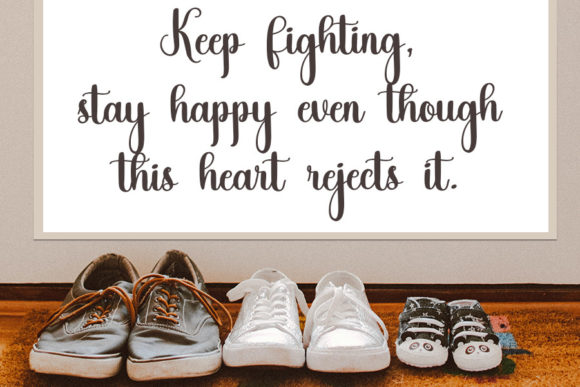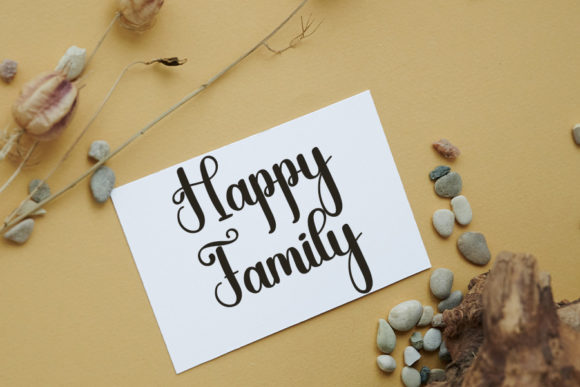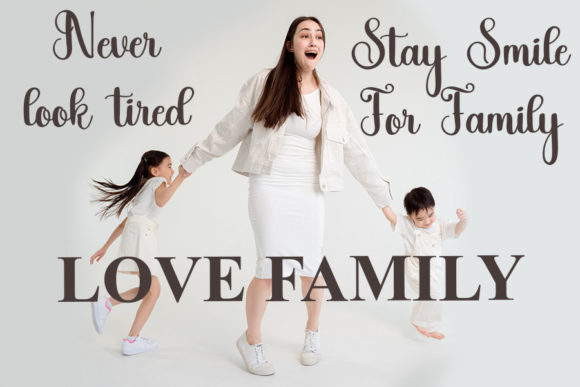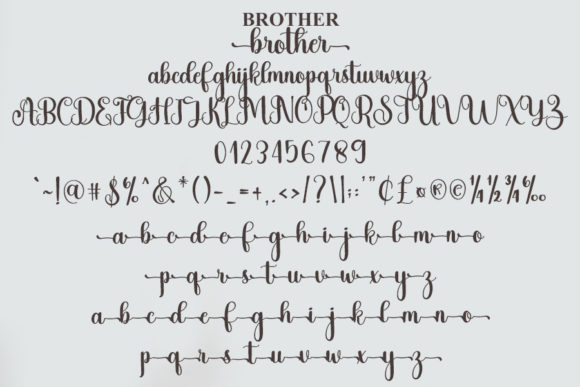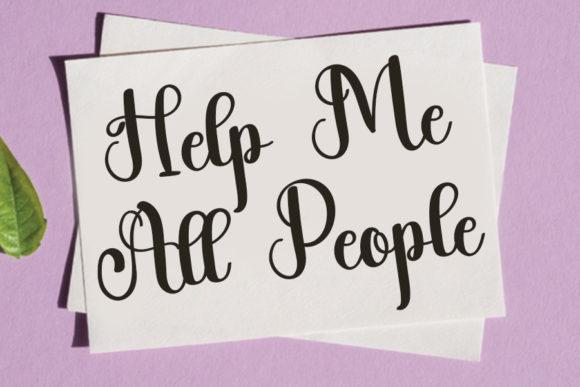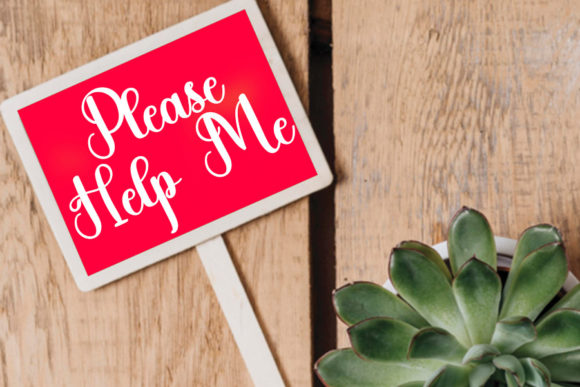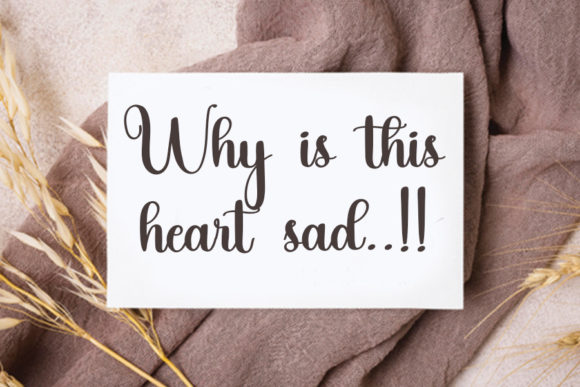
Brother Font
About Brother Font
“Brother” is a font that epitomizes style with a contemporary flair, showcasing impeccable form while drawing inspiration from the timeless elegance of classic calligraphy. This fusion of modern aesthetics and enduring charm creates a font that exudes sophistication. Moreover, “Brother” is PUA encoded, providing effortless access to all its intricate glyphs and swashes, enhancing the versatility of your design.
The allure of “Brother” lies in its ability to seamlessly blend contemporary elements with the timeless grace of classic calligraphy. Its stylish appearance captures attention with its sleek lines and graceful curves, making it a perfect choice for designs that demand a touch of refinement.
The font’s adaptability makes it well-suited for a variety of projects. From branding to invitations, “Brother” seamlessly transitions between different design contexts. Its balanced form lends an air of elegance to logos, allowing brands to convey a sense of class and sophistication.
In the realm of invitations and stationery, the font’s classic calligraphic influence shines through, adding a layer of timeless beauty to your designs. Be it for weddings, formal events, or special announcements, “Brother” elevates the significance and emotion behind the message.
The inclusion of PUA encoding enhances the font’s appeal by offering easy access to a wide range of glyphs and swashes. This feature empowers you to personalize and customize your designs with ease, ensuring that each project reflects your unique creative vision.
In essence, “Brother” is a font that seamlessly marries classic charm and contemporary design. Its flawless form and PUA encoding make it an excellent choice for designers seeking to infuse sophistication and versatility into their projects. Whether you’re working on branding, invitations, or other creative ventures, “Brother” offers a timeless elegance that can enhance the impact of your designs.